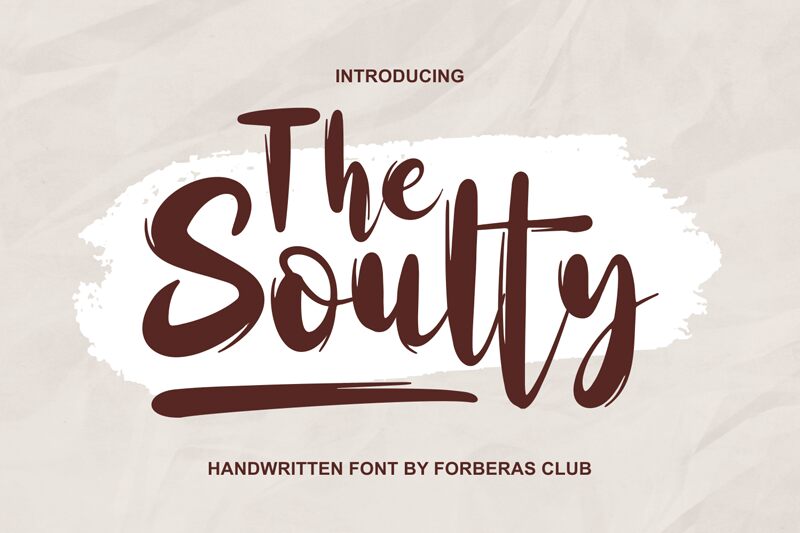
The Soulty, a bold brush font created by Forberas Club, exudes a captivating intensity that is perfect for projects that seek to make a bold statement. With its expressive strokes and artistic flair, this font type adds a touch of vibrancy to any design.
The Soulty thrives in various creative endeavors, including logo designs that demand attention, poster layouts that aim to stand out, and social media graphics that need to make an impact. Its boldness can also be harnessed in headings for magazine spreads or album covers that crave an edgy and rebellious aesthetic.